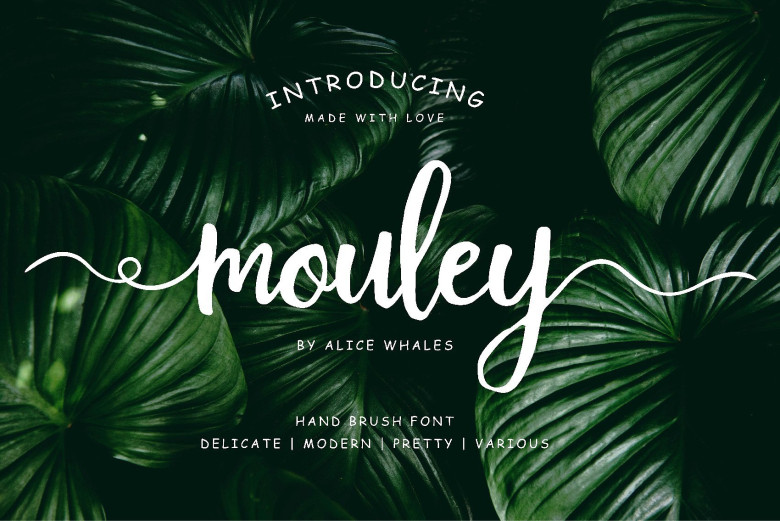
Mouley Script Font
Hi designer. If you are looking for a messi hand brushed font, this would be a good choice. Introducing Mouley! It is designed and shared by Alice Whales. Mouley with the kind of modern hand scratches, I hope you are interested in this font, if you want to use for your work this font can be used easily and simply because there are a lot of features in it to contain a complete set of letters lower and uppercase letters, assorted punctuation, numbers, and multilingual support.